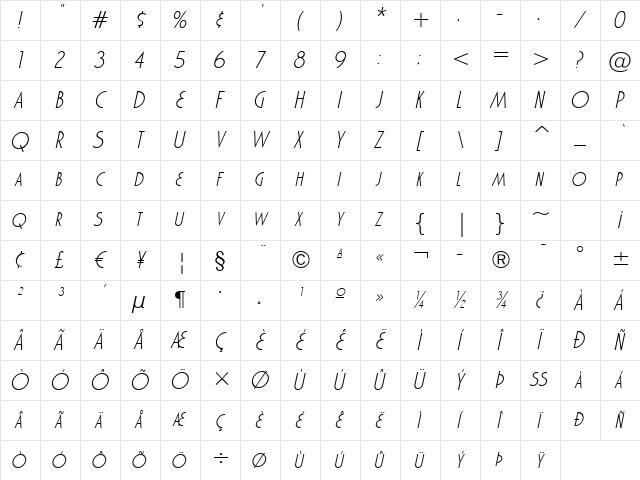
Marquisette BTN Light is a composed and adaptable typeface that performs quietly and consistently across a wide range of design contexts. The slanted form adds forward momentum and visual energy. Its slender proportions lend an understated elegance to any composition.